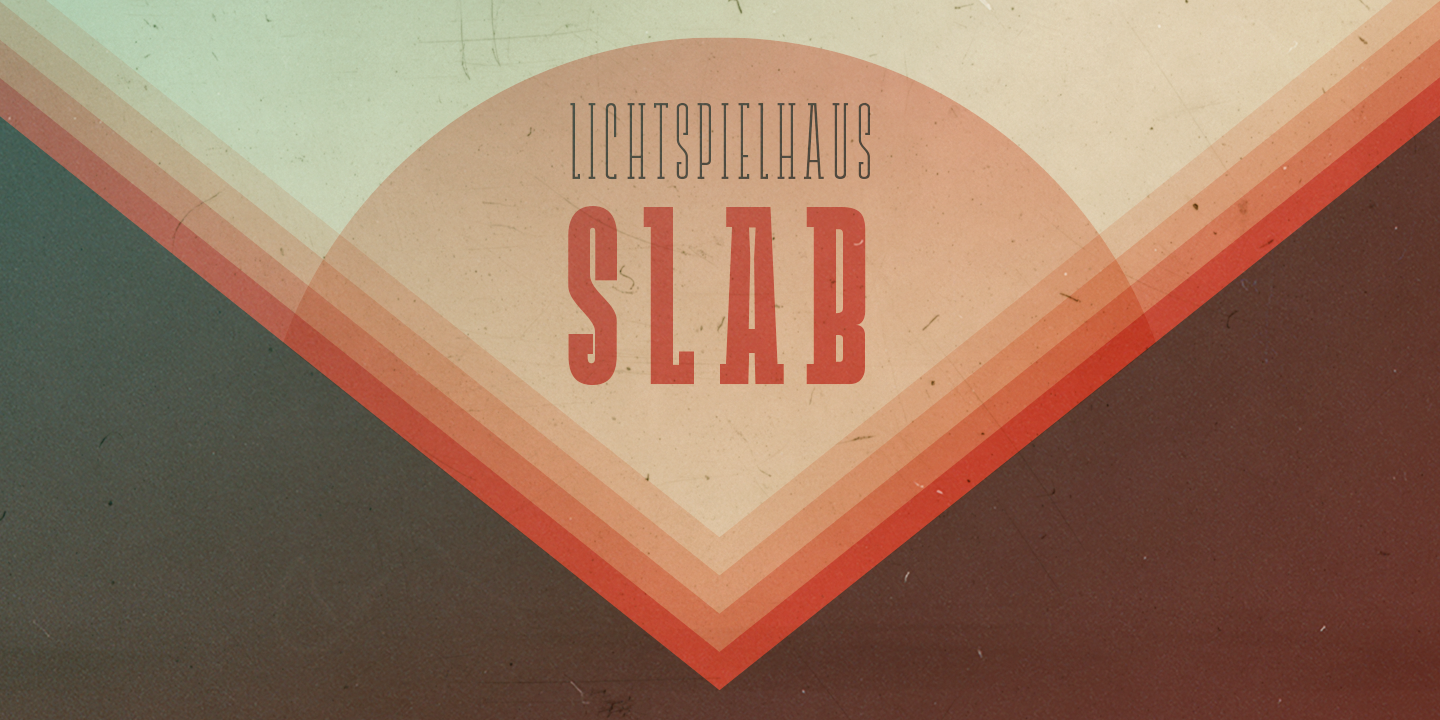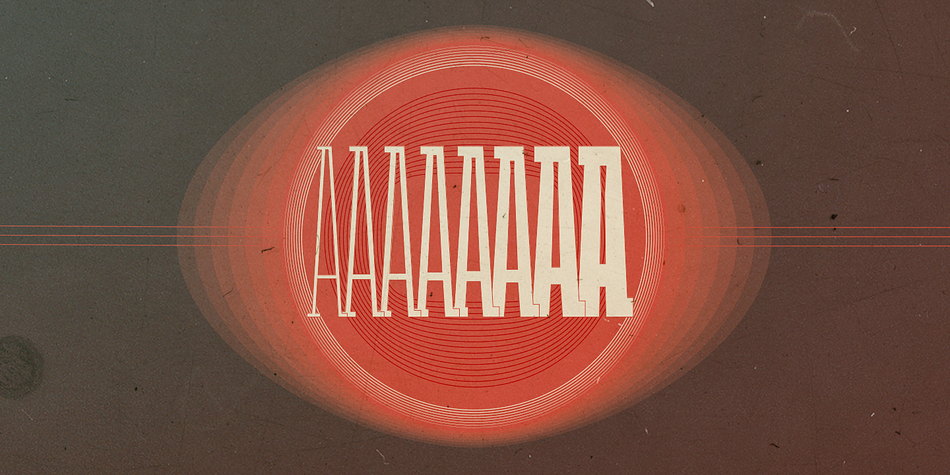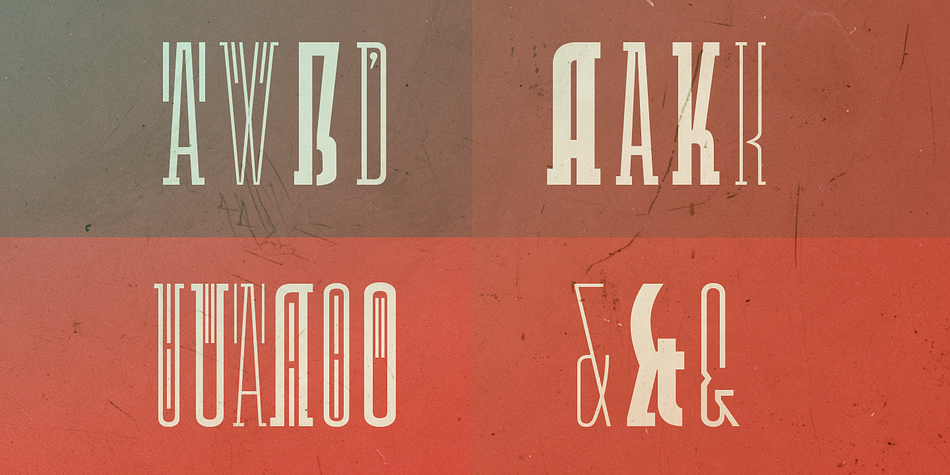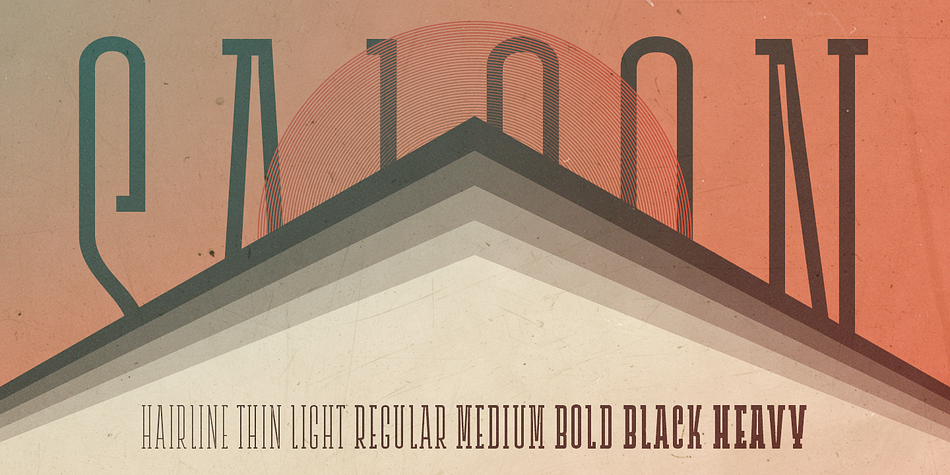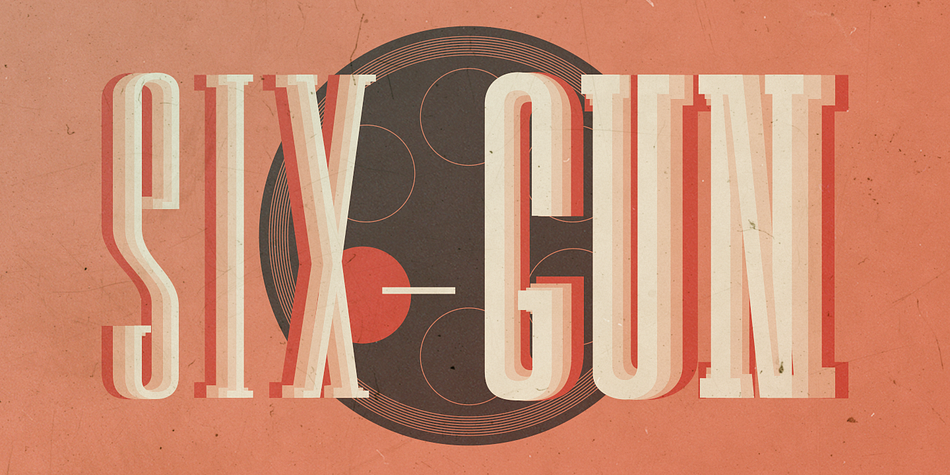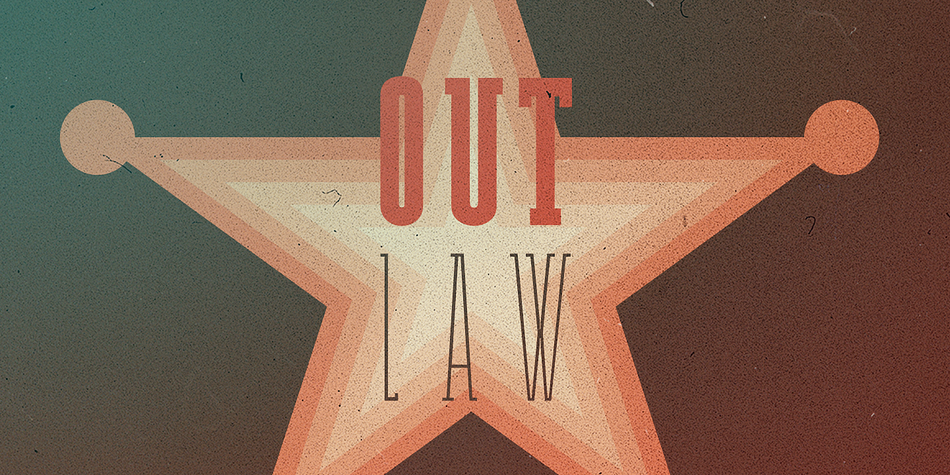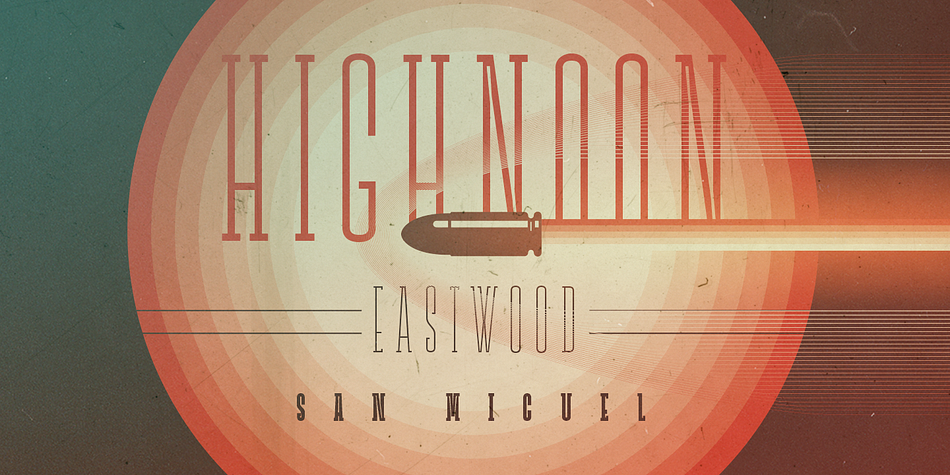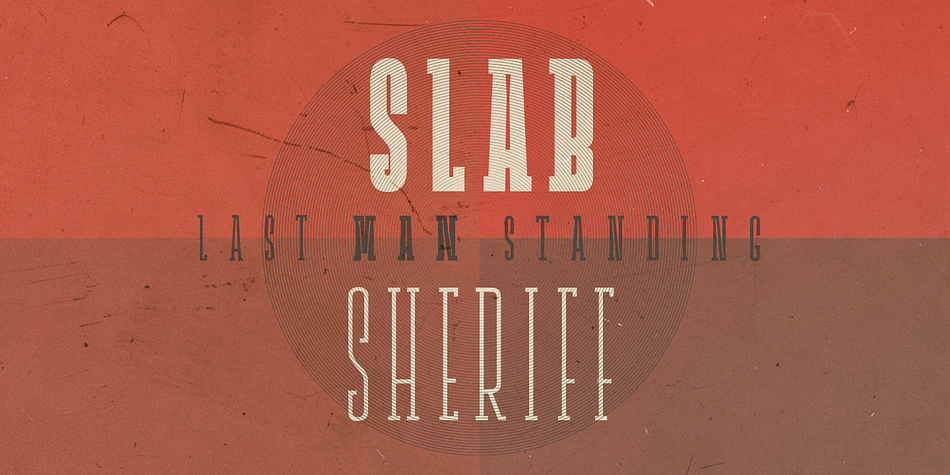
Designed by Stefan Huebsch, Lichtspielhaus Slab is a display slab font family. This typeface has eight styles and was published by Typocalypse.
Lichtspielhaus Slab is an ultra condensed handwritten typeface based on Lichtspielhaus. It still transports you back to a time where neon lights and marquee letters decorated cinema facades. This time with Slab.
There are 8 styles: Hairline, Thin, Light, Regular, Medium, Bold, Black and Heavy.
Lichtspielhaus Slab is the third part of a Type Noir Quadrilogy.